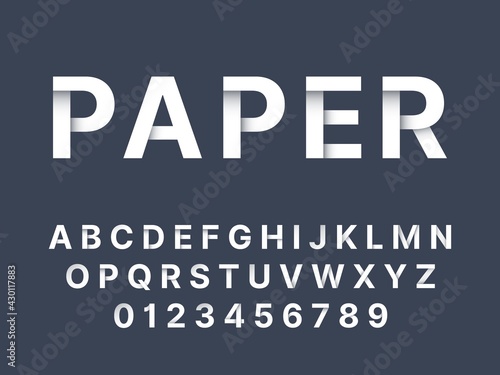
Origami font. White folded paper latin letters and numbers, modern english alphabet, handcrafted simplistic typography, creased signs. Creative typeface with shadows vector isolated set